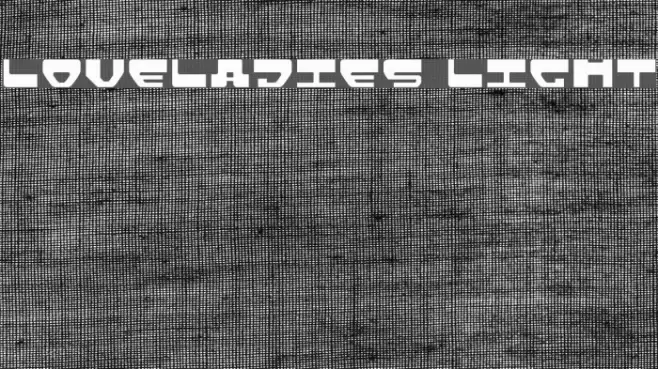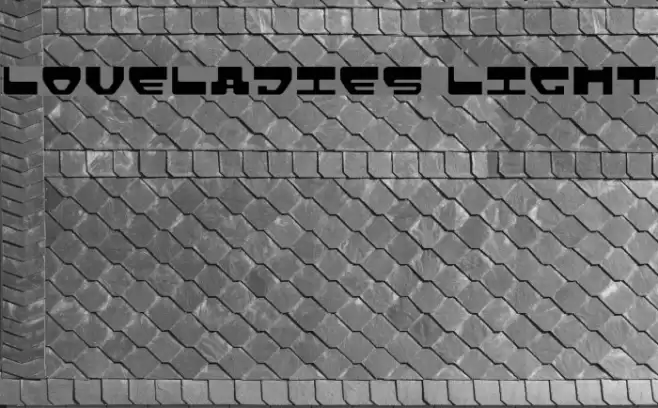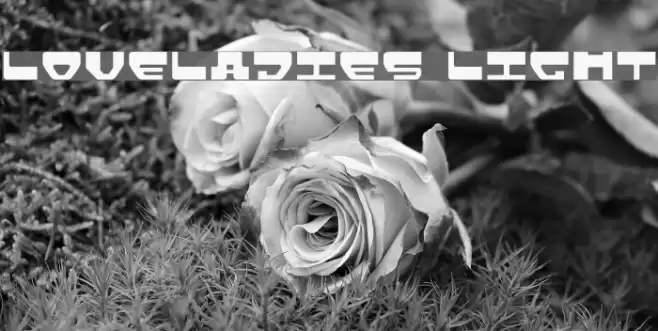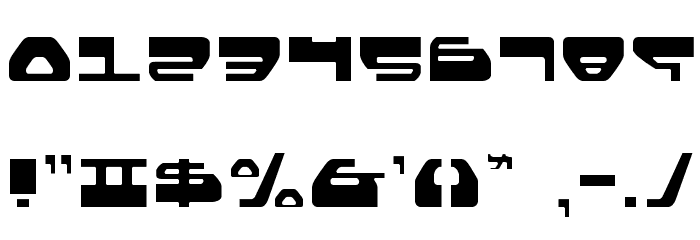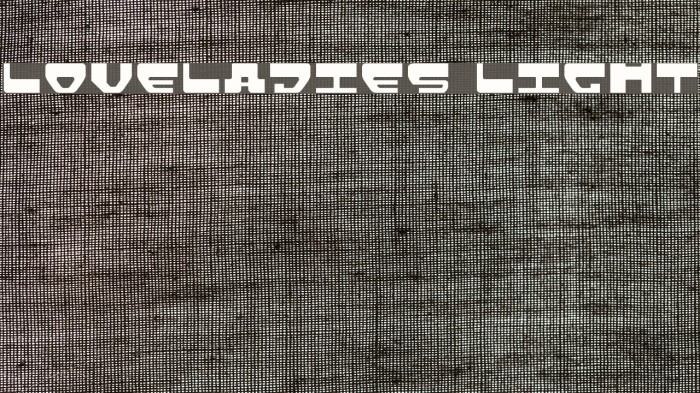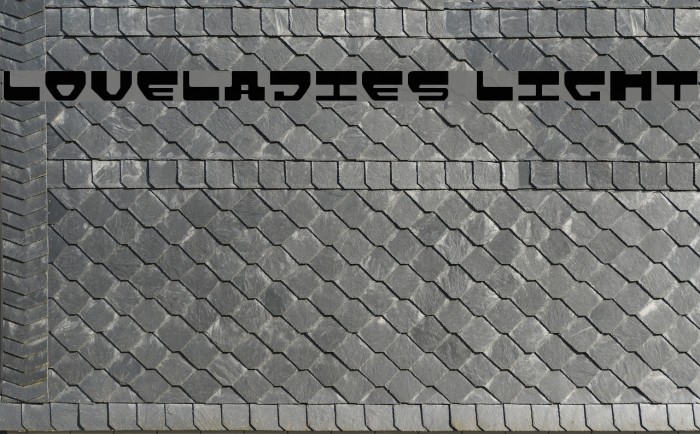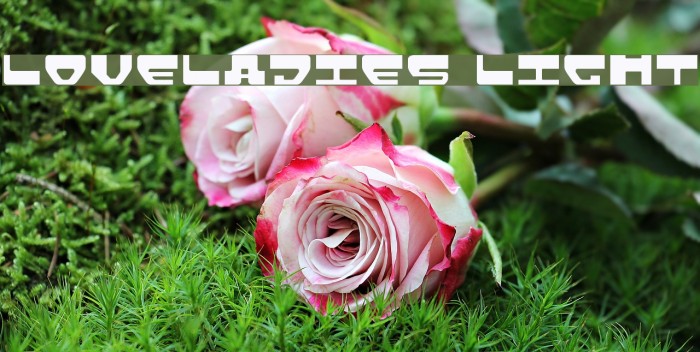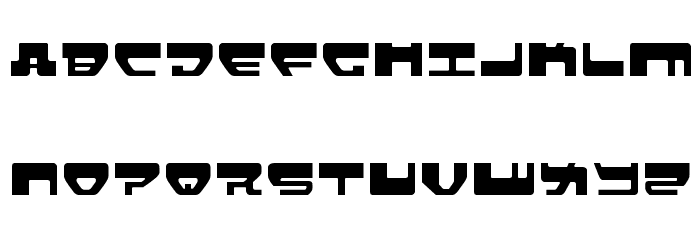
Loveladies Light Font
Loveladies Light Description
This font features a bold, futuristic design with geometric shapes and sharp angles. The characters are constructed with a mix of solid and cut-out sections, giving them a unique, digital appearance. The uppercase and lowercase letters maintain a consistent style, with the lowercase slightly smaller but equally bold. Numbers and special characters follow the same design principles, ensuring uniformity across all glyphs. The font's distinct style makes it stand out, suitable for projects that require a modern and edgy look.
A bold, futuristic font with geometric shapes and sharp angles from Uncategorized fonts.
- Proposed Projects: Ideal for sci-fi themed designs, video game titles, tech branding, and futuristic posters.